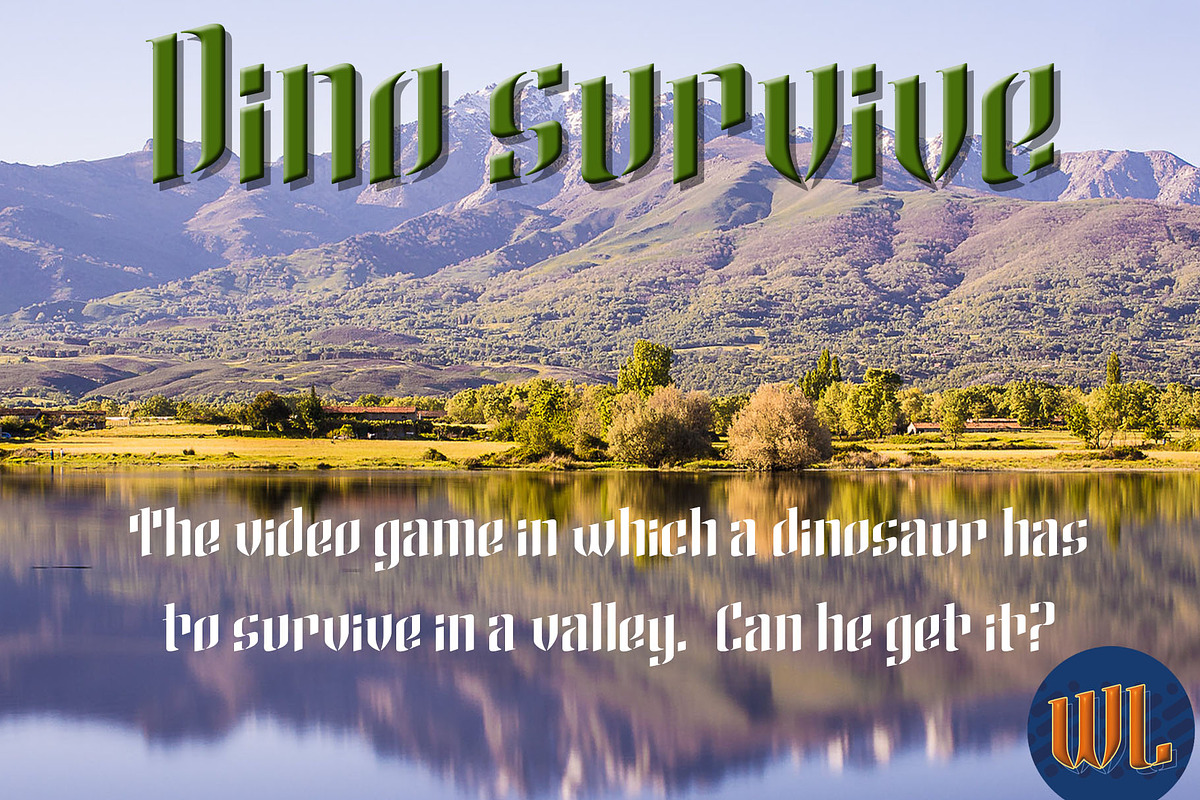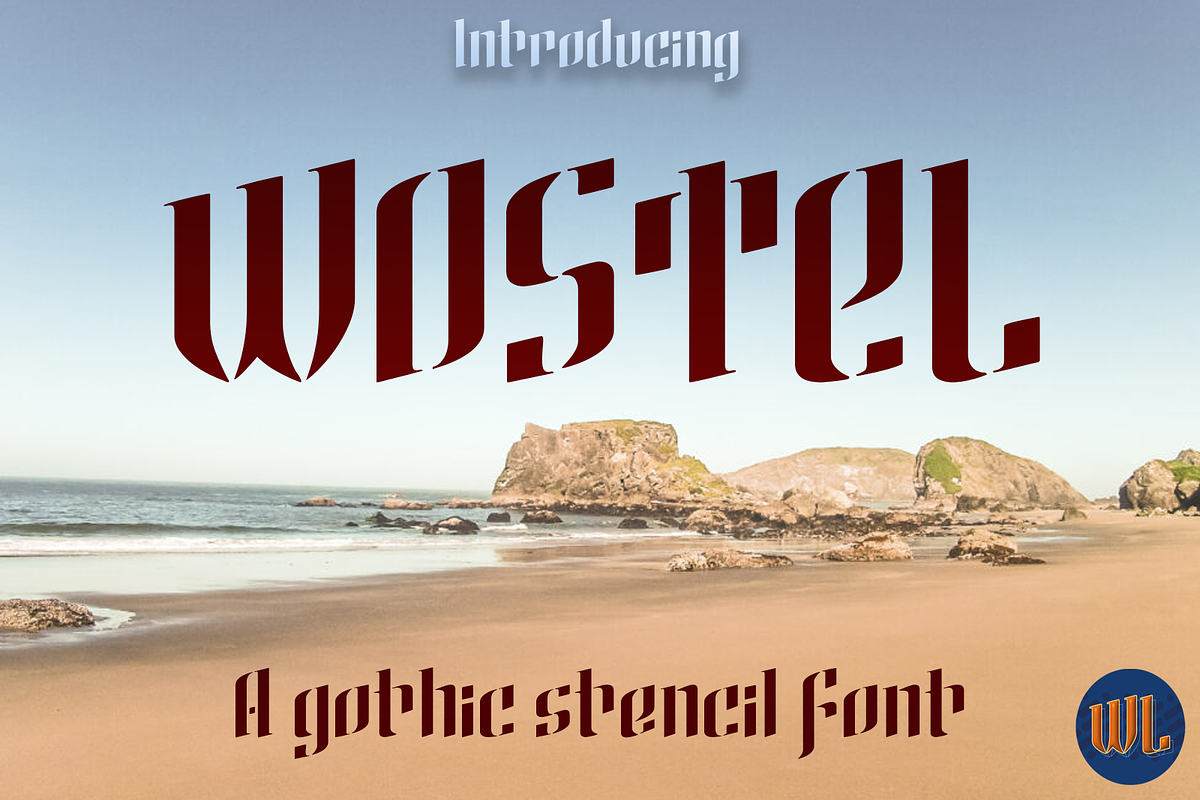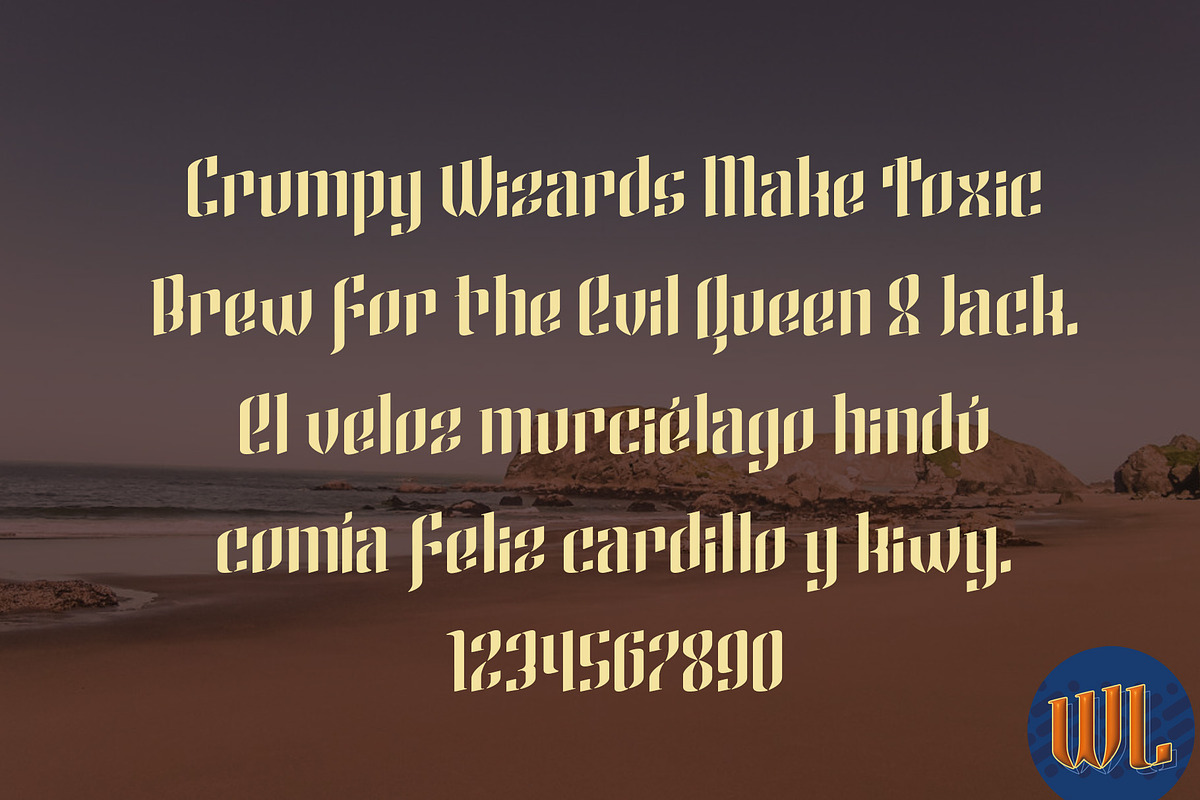
Wostel
A gothic stencil font for a design purposes. Wostel is a font created by Alberto Villanueva 2024. Added web fonts and vectors. For commercial usage of this font the purchase of this license is required.